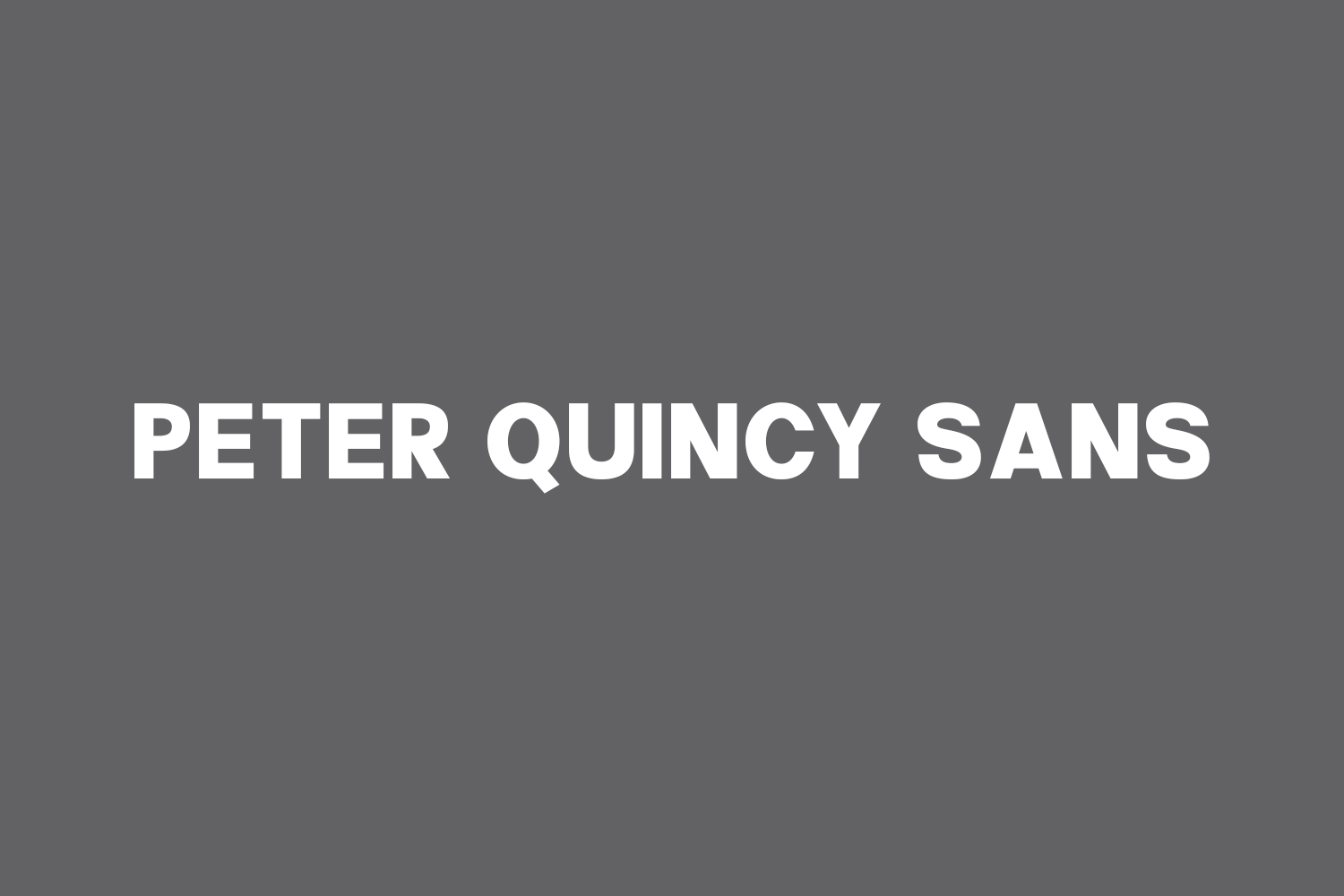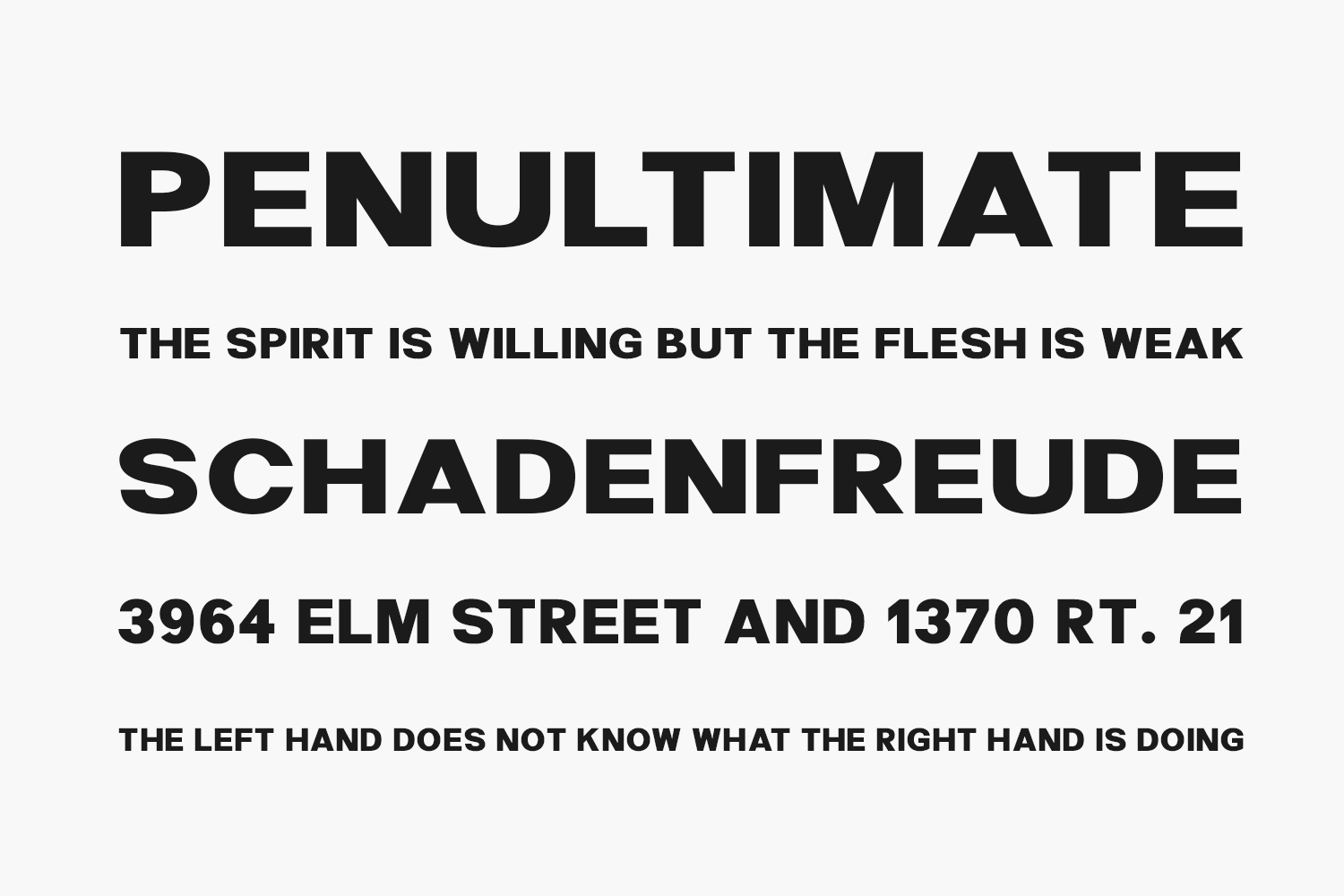
Peter Quincy Sans Free Font Family is a unique font duo with sans and hand-drawn script styles. It is perfectly suited for a wide variety of projects. Download the font for free if you need it for personal use or purchase the full version for commercial use.
Designed by Akhmad Reza Fauzi